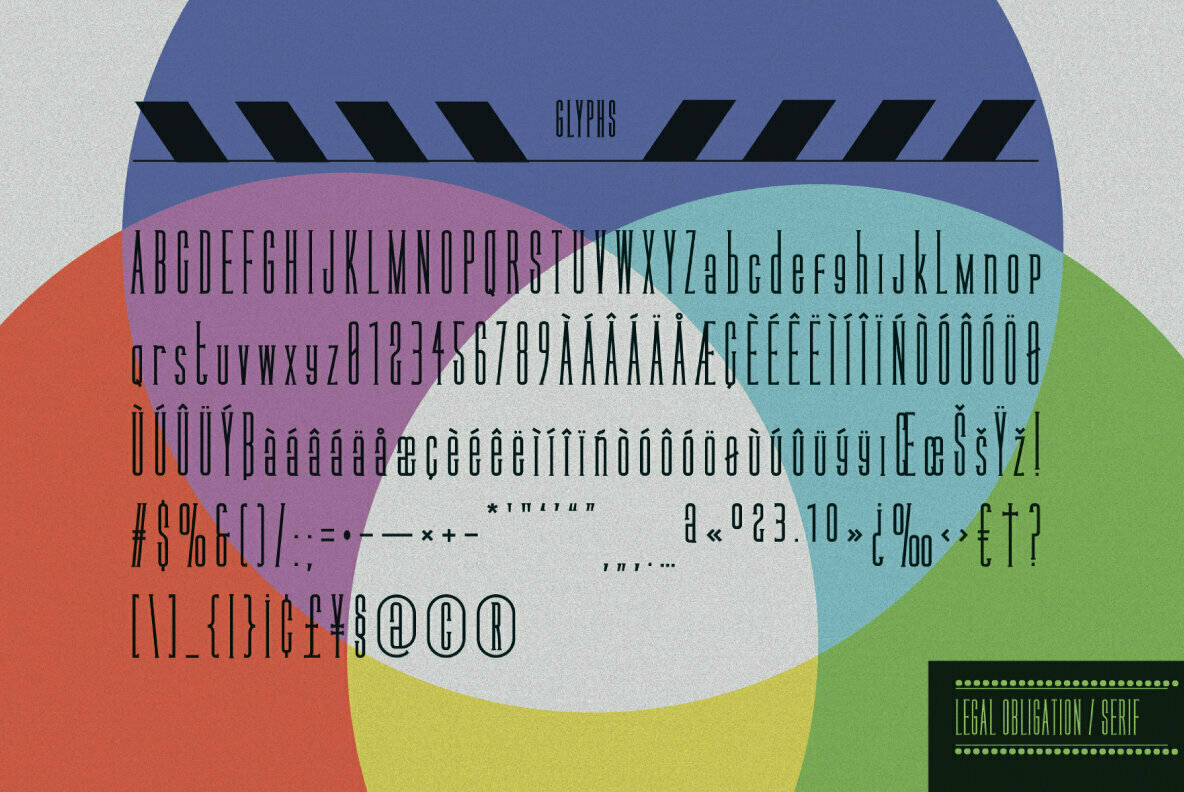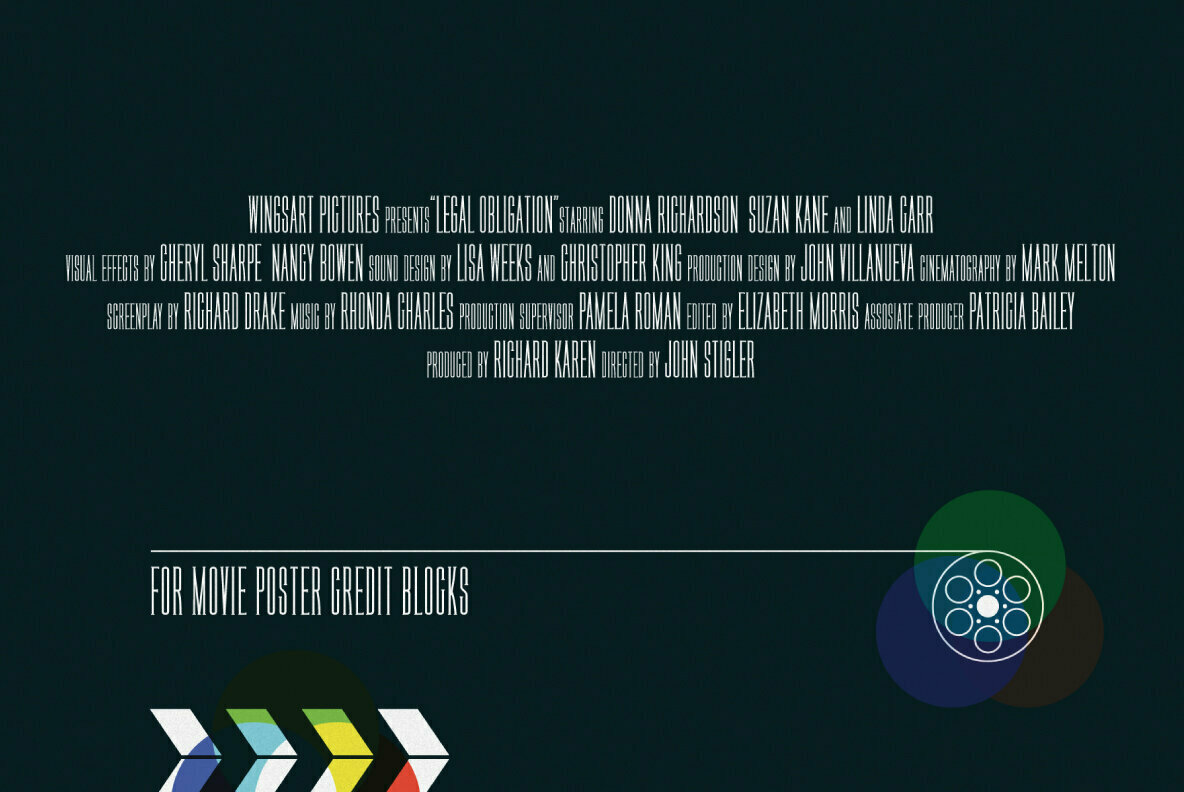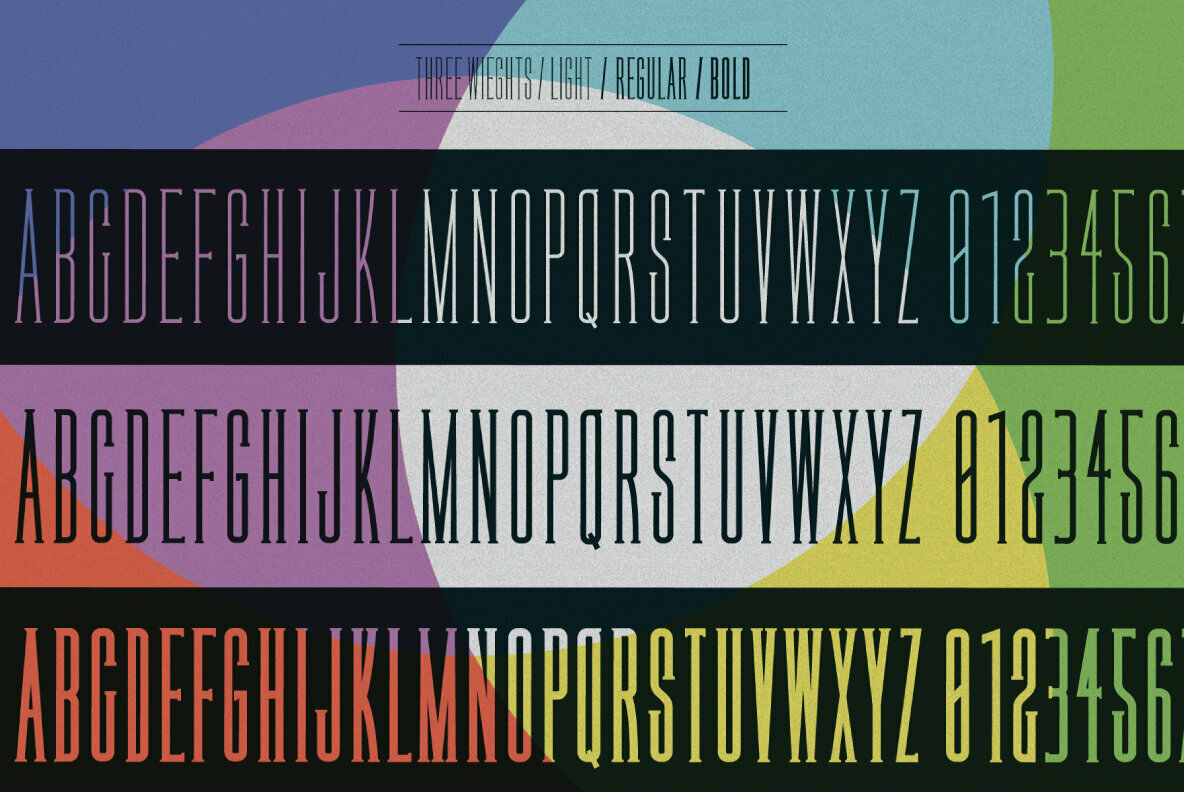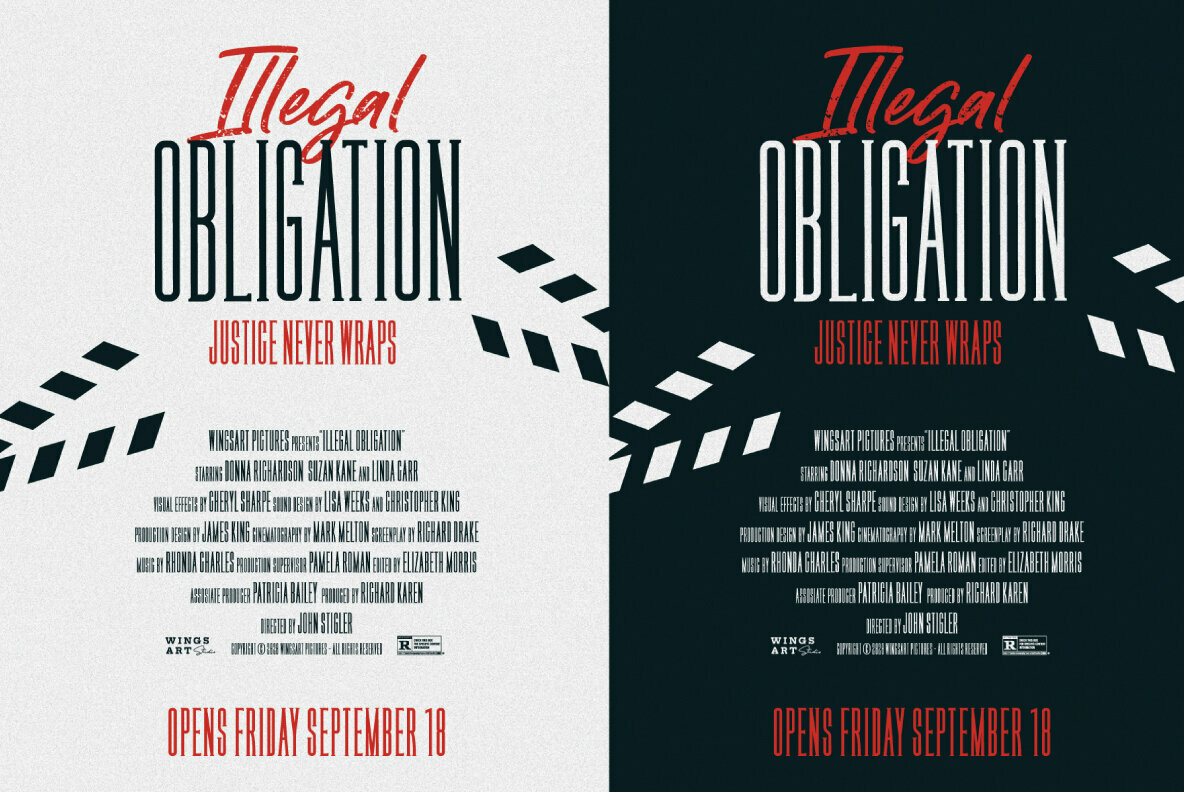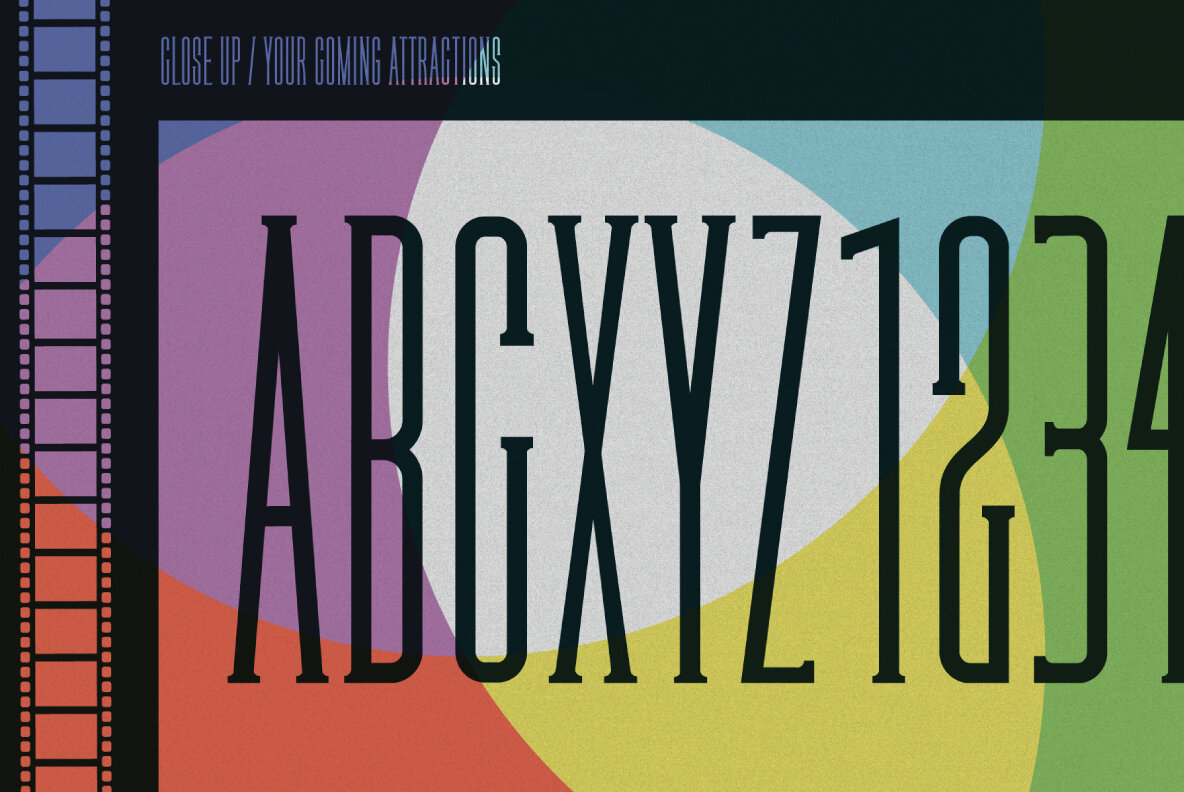
Legal Obligation Serif Font
A dedicated compressed Serif font for movie poster credit blocks and cinematic title designs. A workmanlike tool for adding extensive cast and crew information to movie posters without dominating the overall layout. Supplied with lowercase characters and three weights.